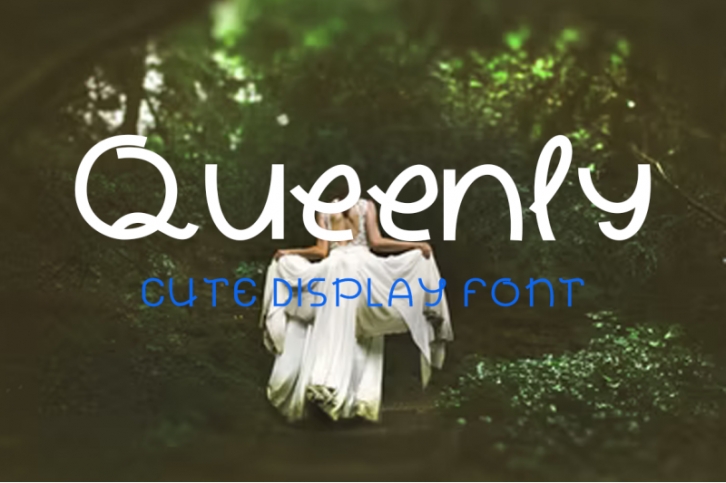
Introducing a cute handwriting "Queenly" display font
If you are needing a touch of casual modern calligraphy for your designs, this font was created for you!